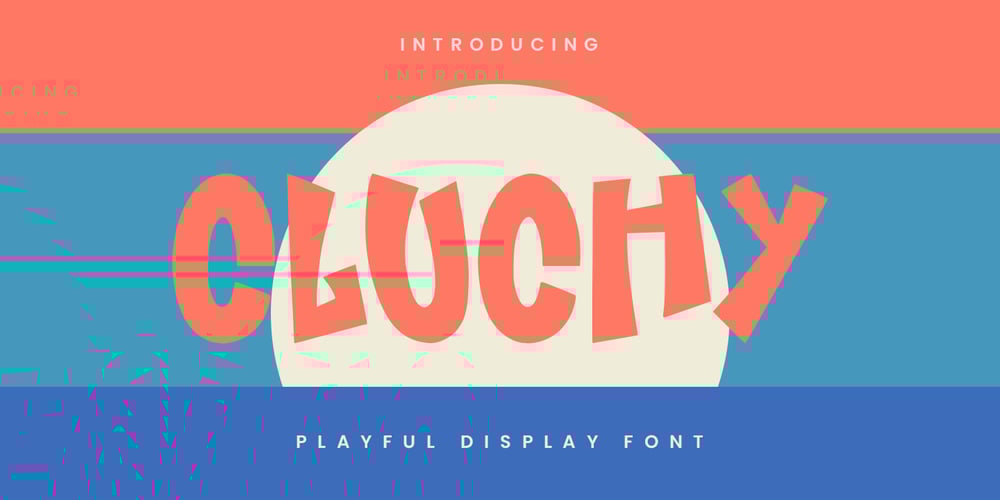
MC Cluchy Font Family was designed by Gilang Maulana and published by Maulana Creative. MC Cluchy contains 1 styles and family package options. Cluchy playful display font. Heavy stroke, fun character with a bit of ligatures. To give you an extra creative work. Cluchy playful display font support multilingual more than 100+ language. This font is good for logo design, Social media, Movie Titles, Books Titles, a short text even a long text letter and good for your secondary text font with script or serif. Make a stunning work with Cluchy playful display font.